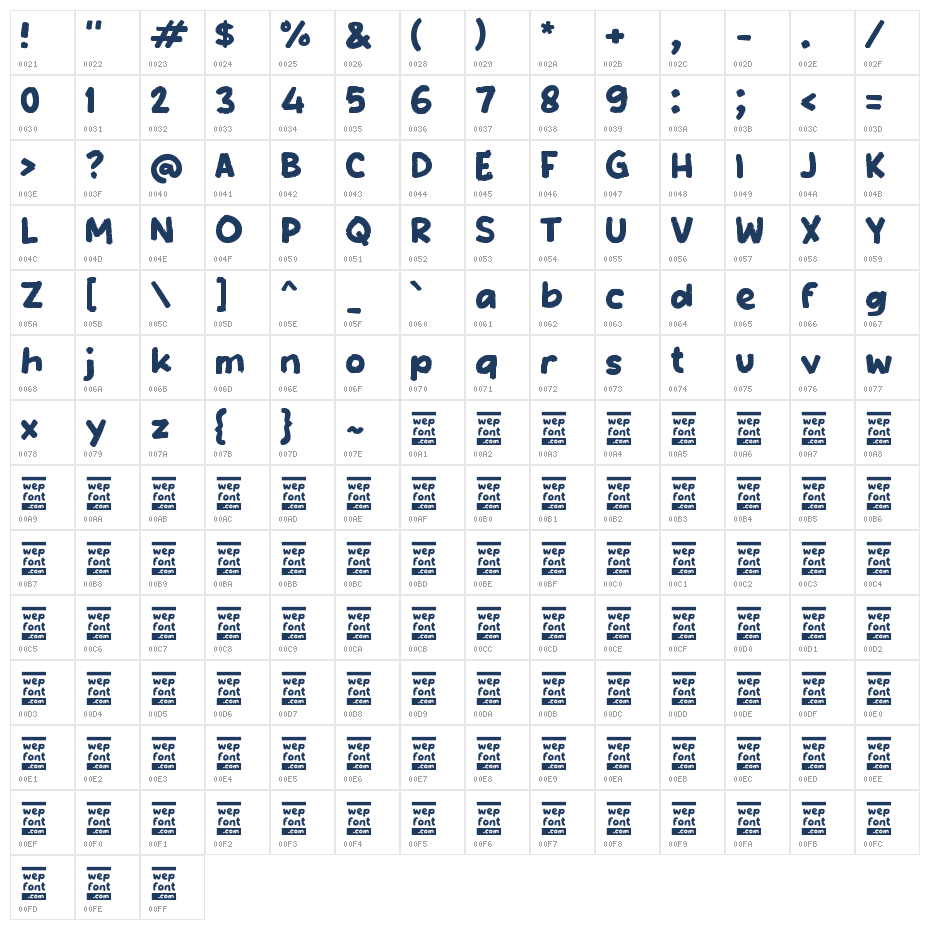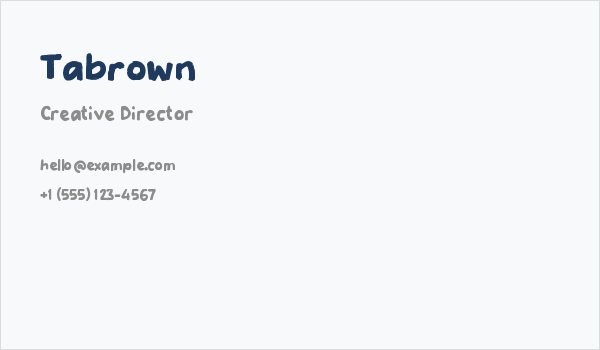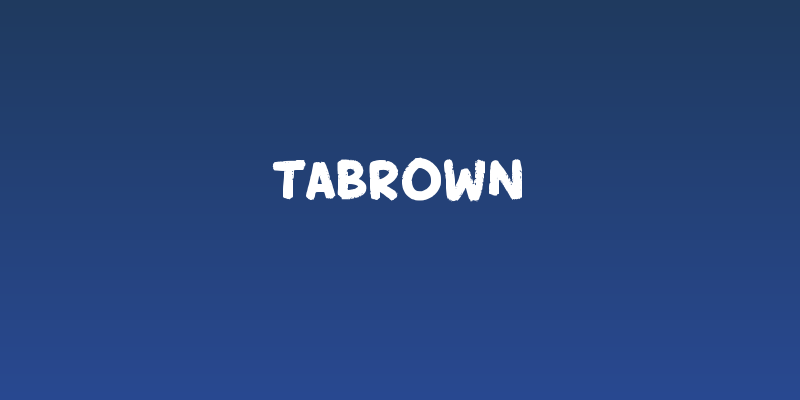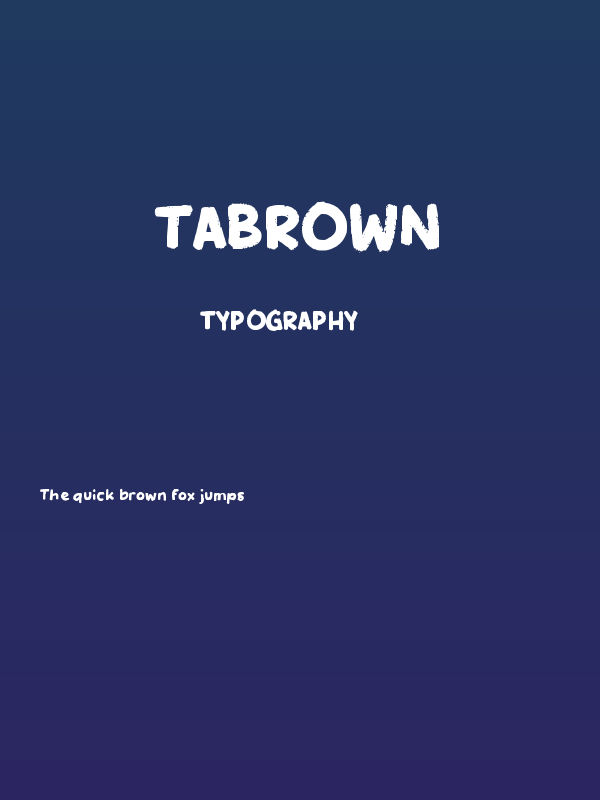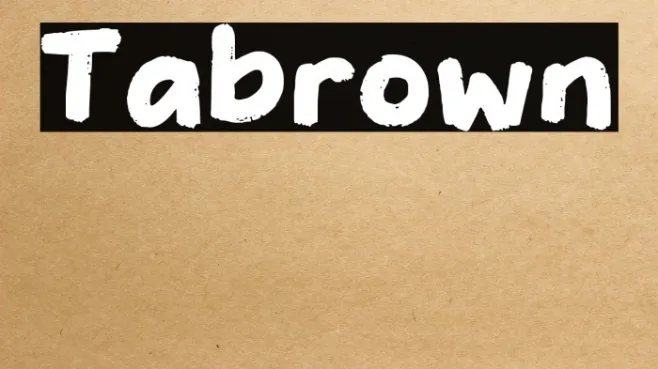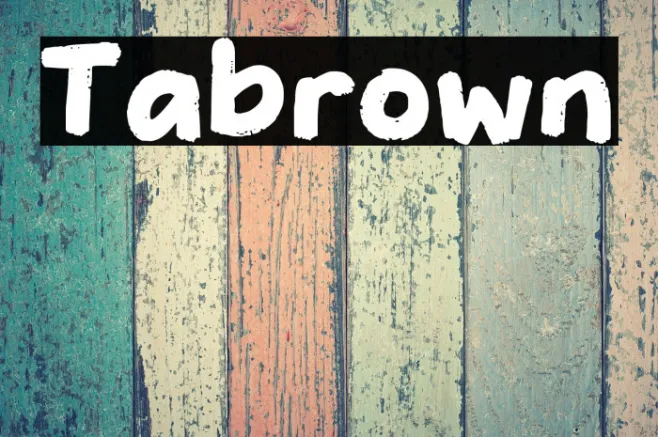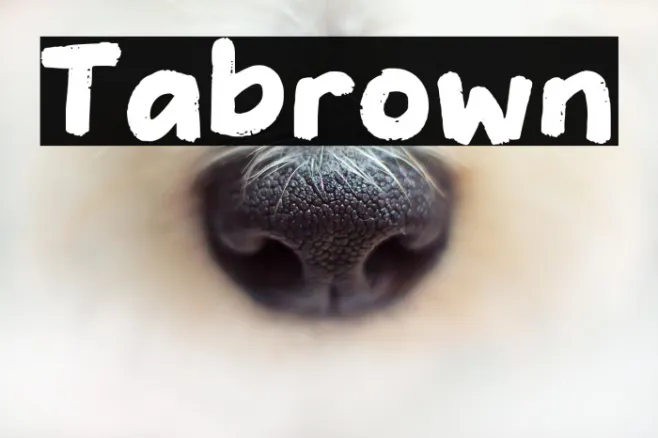
Tabrown Font
Tabrown Description
A bold, playful, handwritten style font with a textured, brush-like appearance.
| Overall Style | Casual, Playful, Handcrafted |
| Use Case | Headlines, Logos, Posters, Packaging |